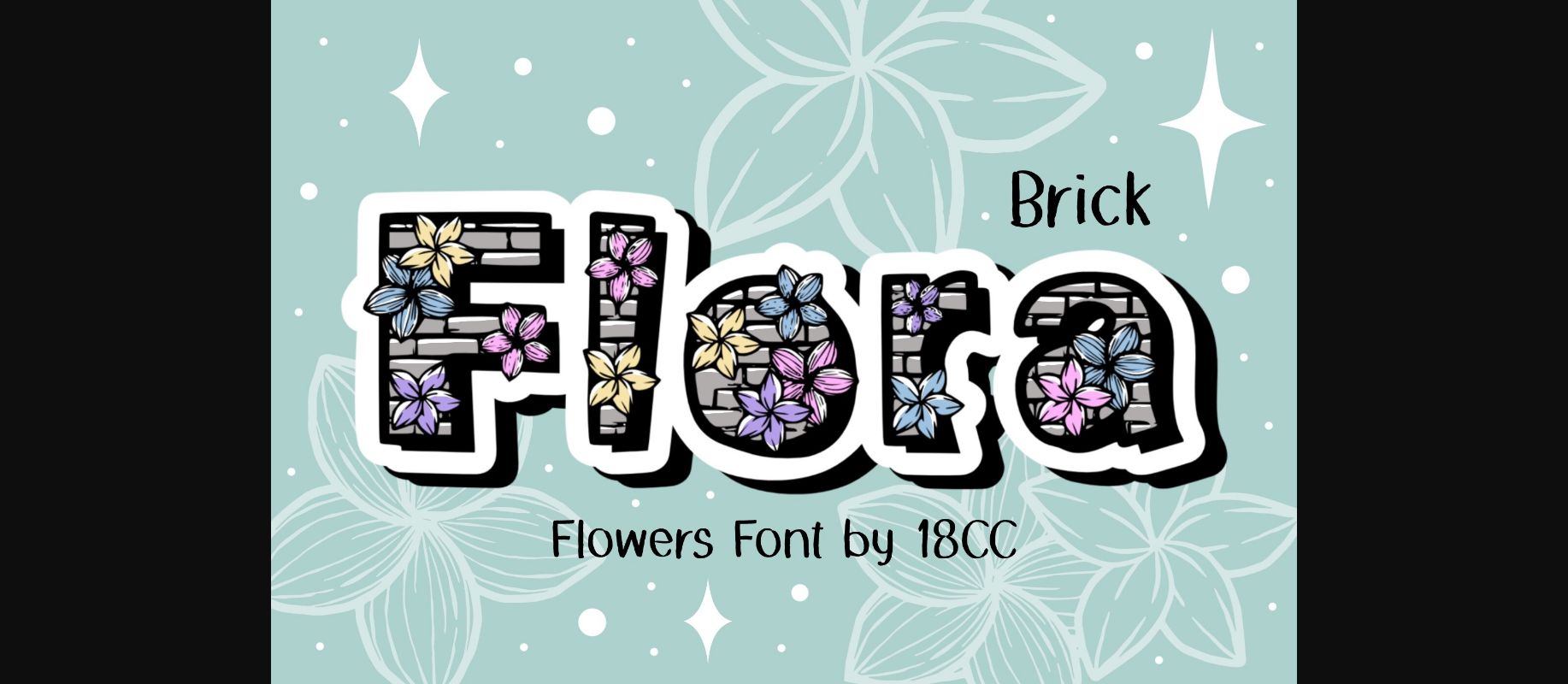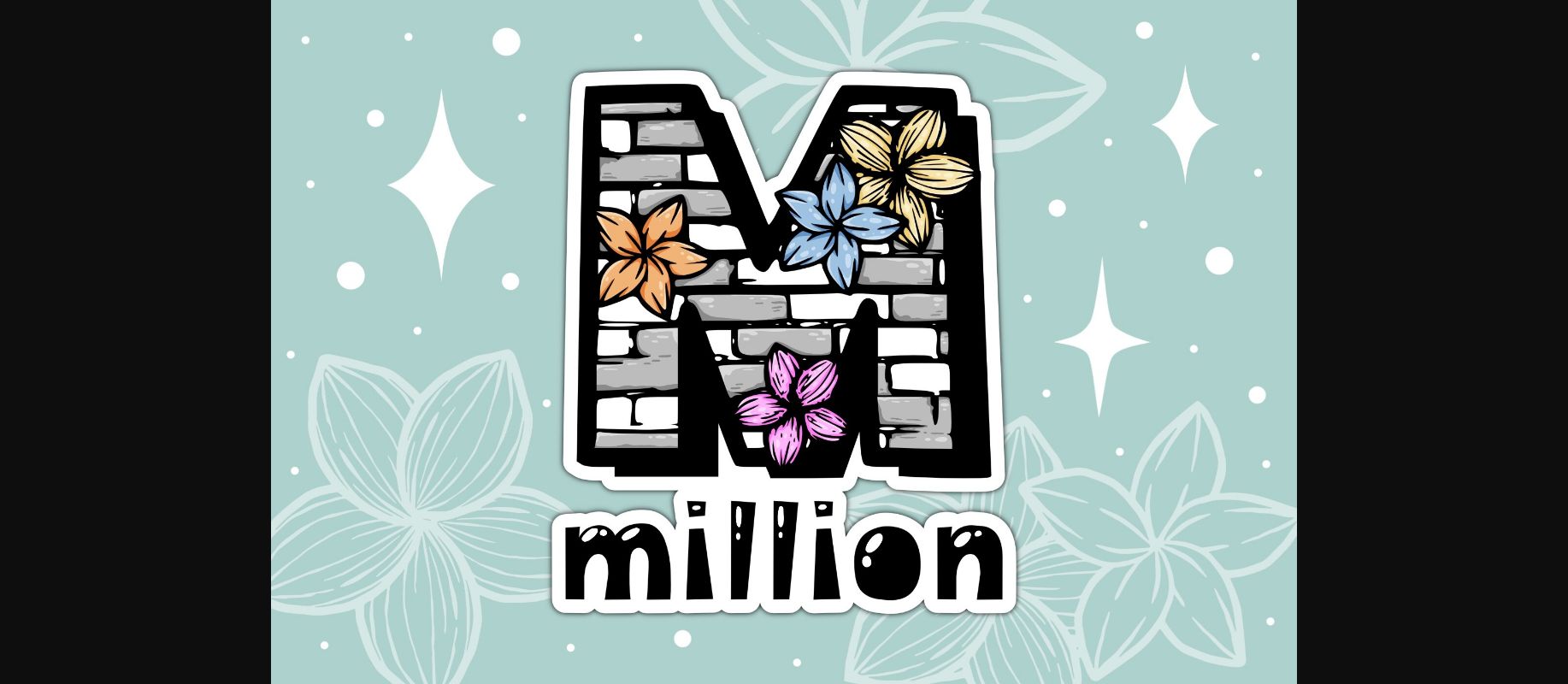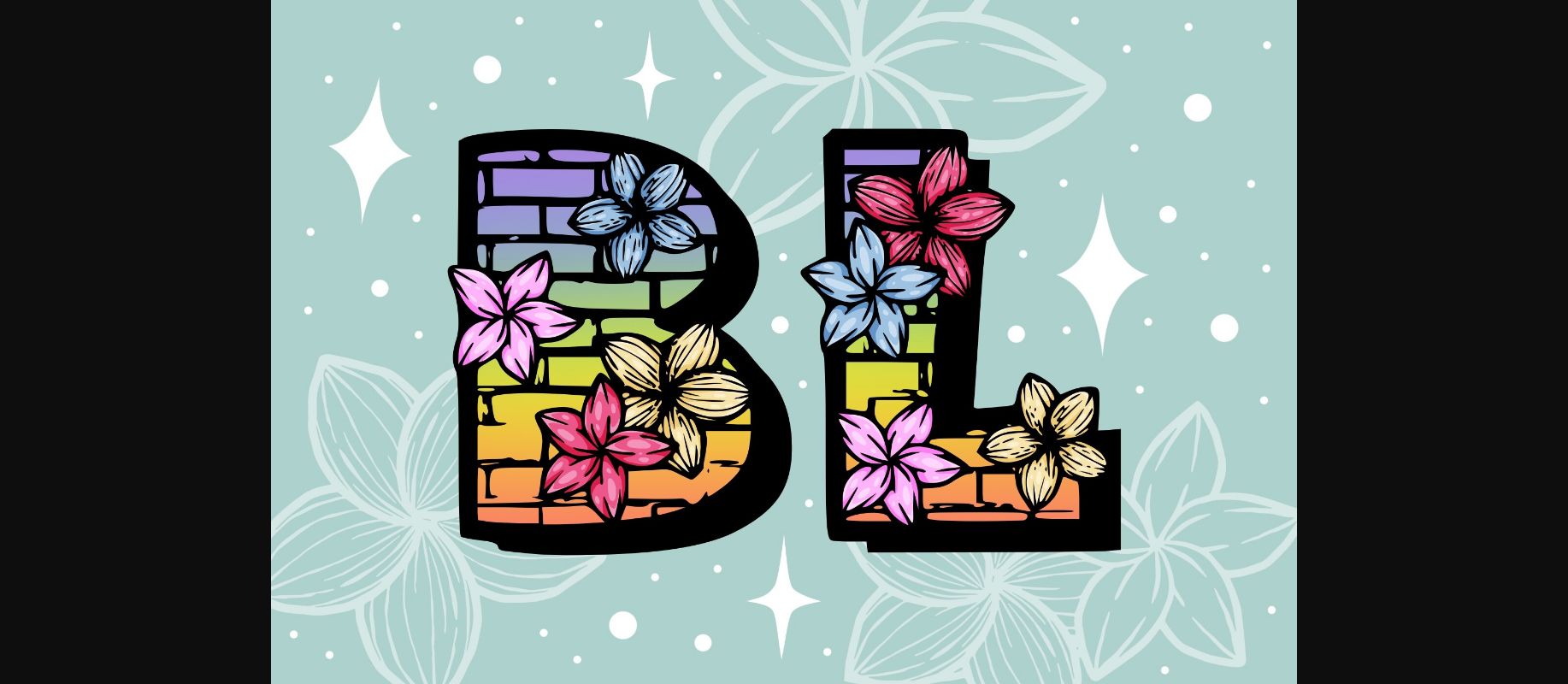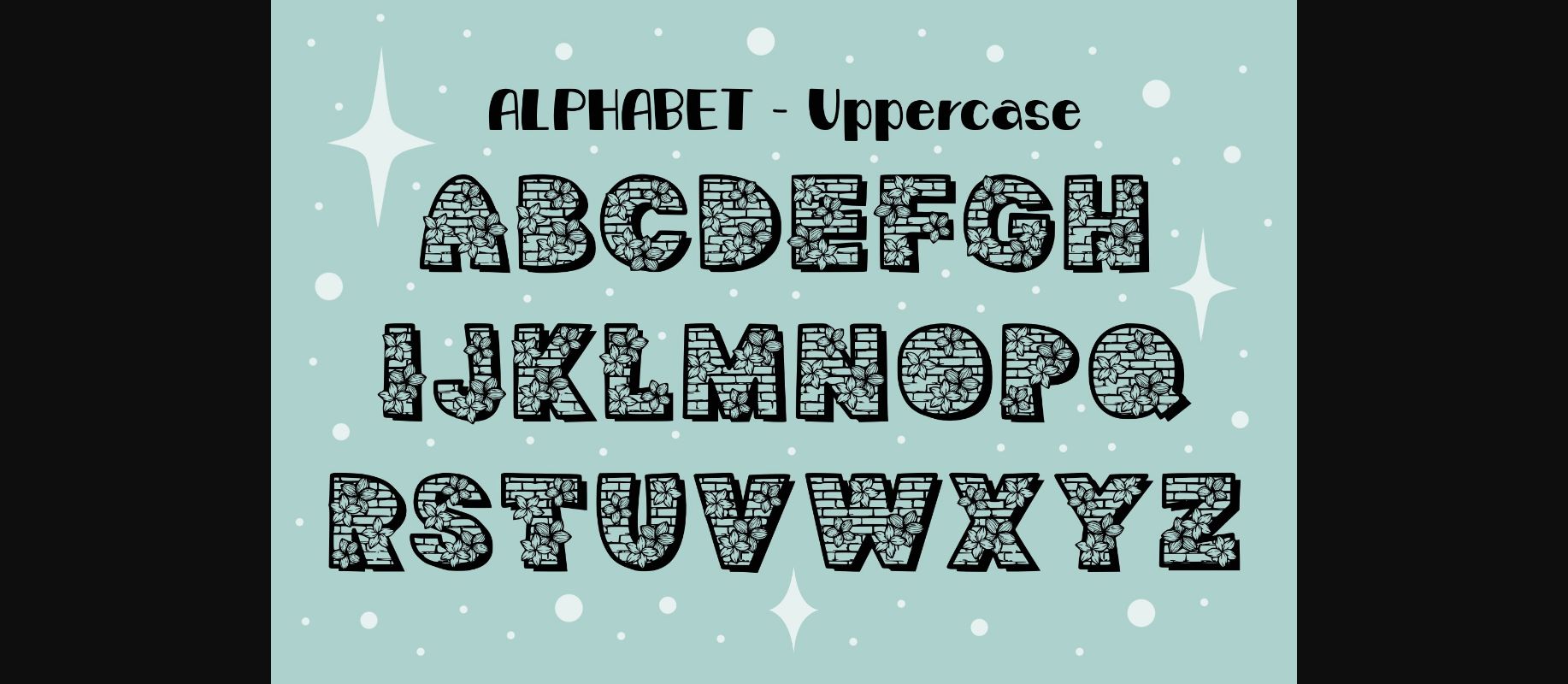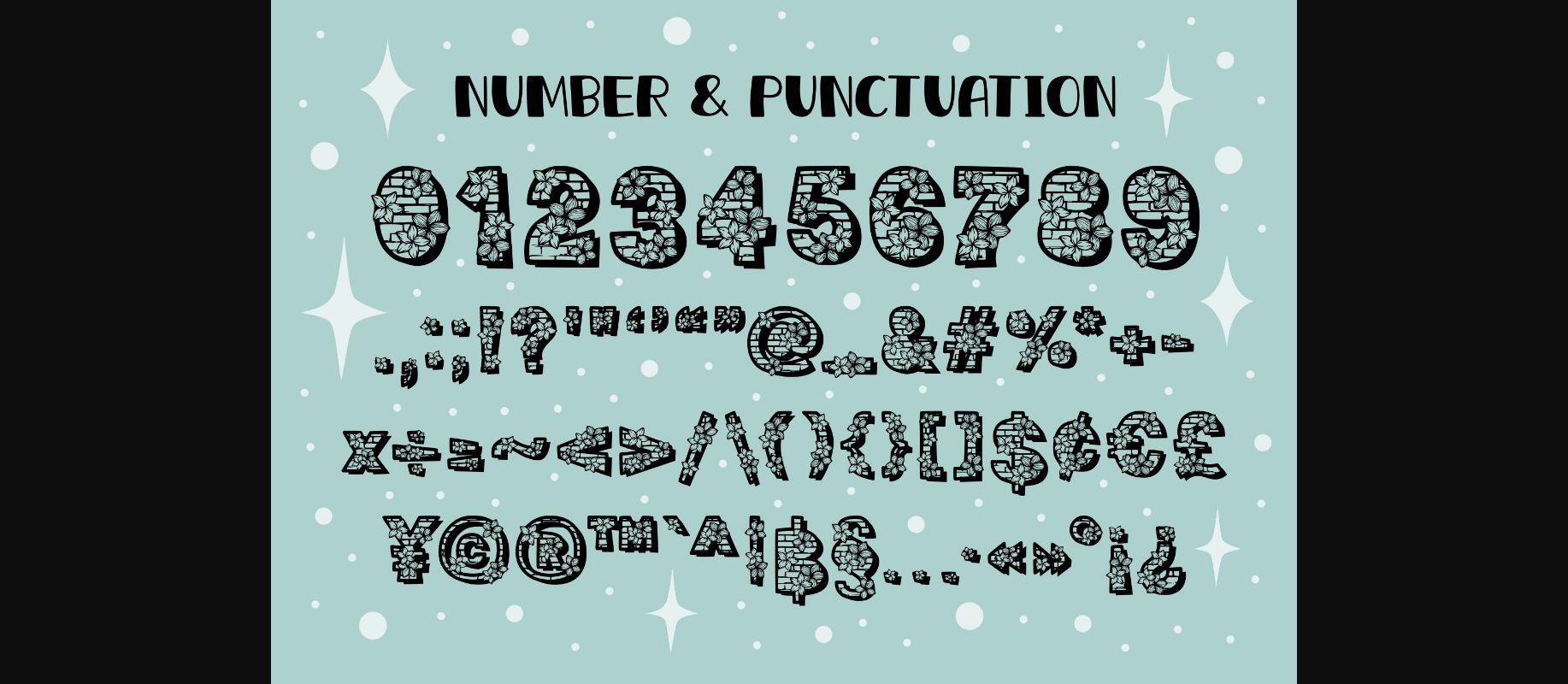
About Flora Brick Font
Flora Brick is a flowers on wall brick font. This font is the perfect fit for all of your t-shirt, logos, branding, social media, crafty DIY projects, and much more!